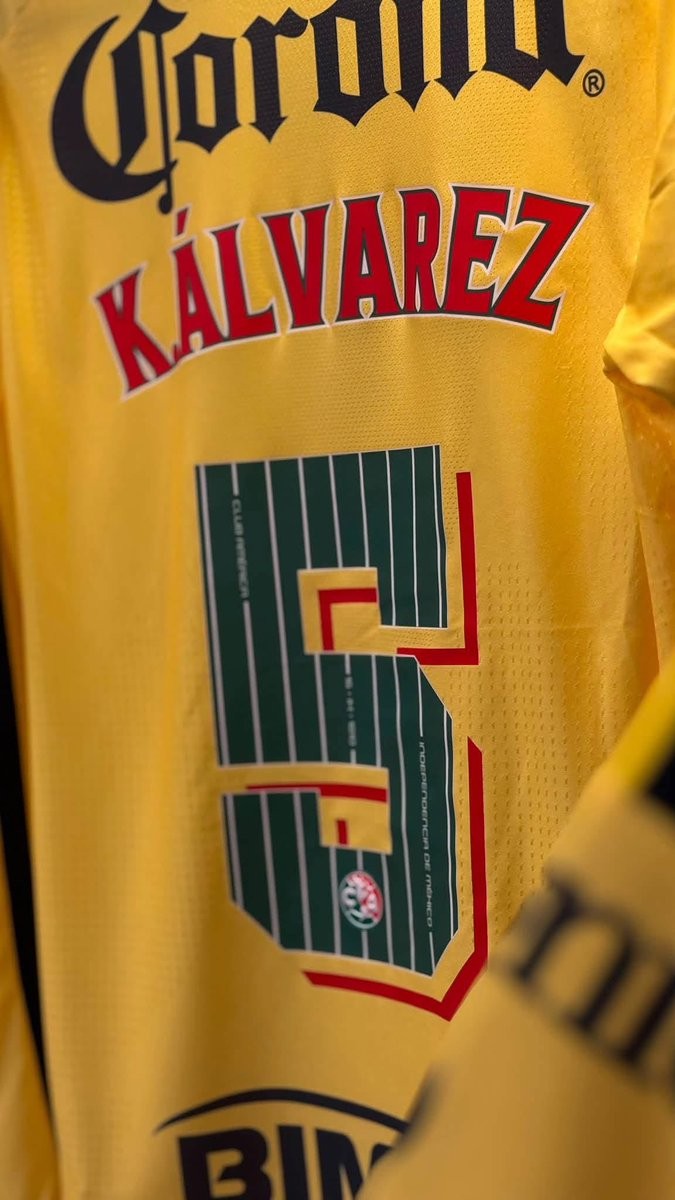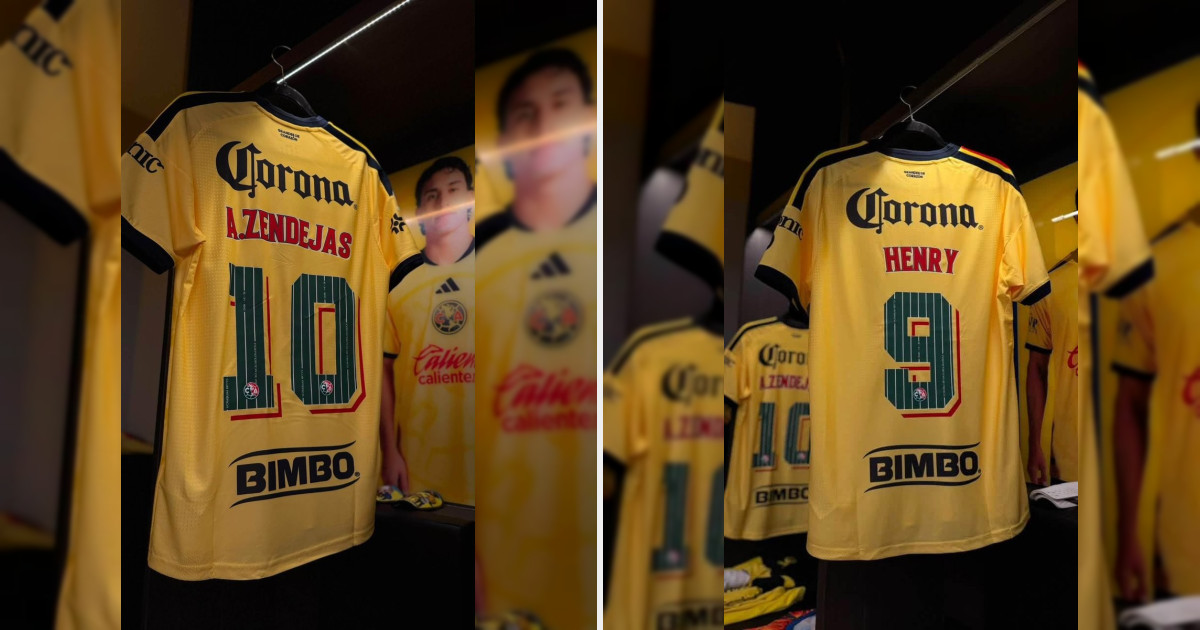
Special Club América 26-27 Kit Font Released
Club América has unveiled a special commemorative kit font for the 26-27 season, celebrating Mexican Independence Day and the club's marquee Clásico matches throughout September. The bespoke nameset replaces the regular squad typography on the back of Las Águilas' primary yellow home shirt, adopting the iconic green, white, and red of the Mexican flag.
The custom numbers feature a deep green base detailed with thin white vertical pinstripes. Embedded along the vertical lines are historic commemorative inscriptions, including the club name, the date "16 - 09 - 1810" marking the start of the Mexican War of Independence, and "INDEPENDENCIA DE MÉXICO". The player names above are rendered in vibrant red with a clean white outline.
To complete the patriotic design, each numeral incorporates a geometric red and cream 3D shadow effect, alongside Club América's crest placed at the base of every digit. The special typography delivers a unique cultural tribute, adding extra identity to the squad's jerseys during one of the most important periods of the Mexican football calendar.